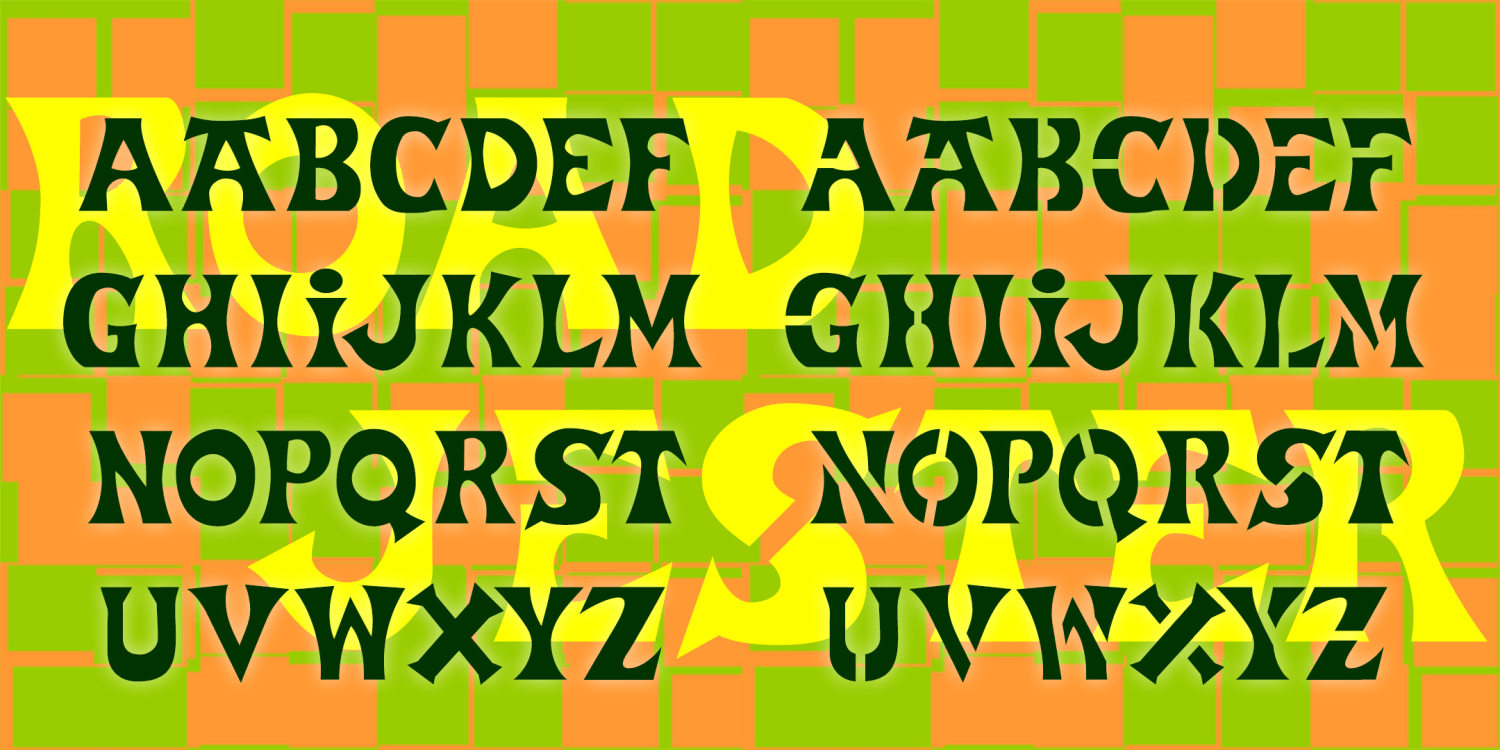
Road Jester
About Road Jester
ROAD JESTER is bold and playful, suggesting the hand-lettered signs you might find in a sleepy beach town. Road Jester was inspired by the logo of Trader Joe's, the offbeat grocery chain; additional characters were inspired by Basque-style lettering.…